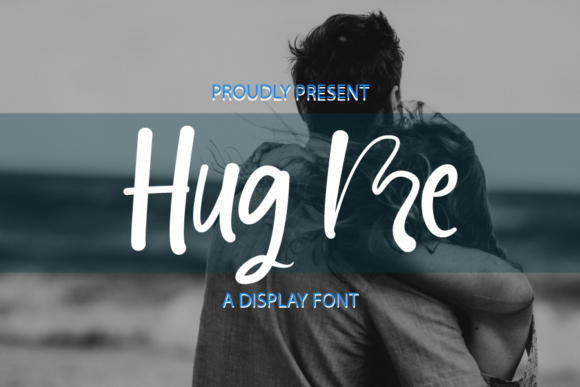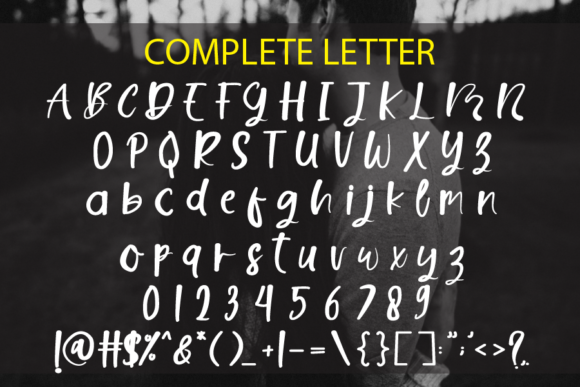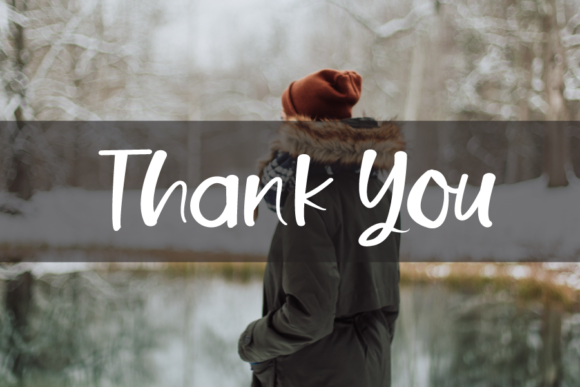
Hug Me Font
About Hug Me Font
Hug Me is a simple and neat lettered handwritten font. No matter the topic, this font will be an incredibly asset to your fonts’ library, as it has the potential to elevate any creation.